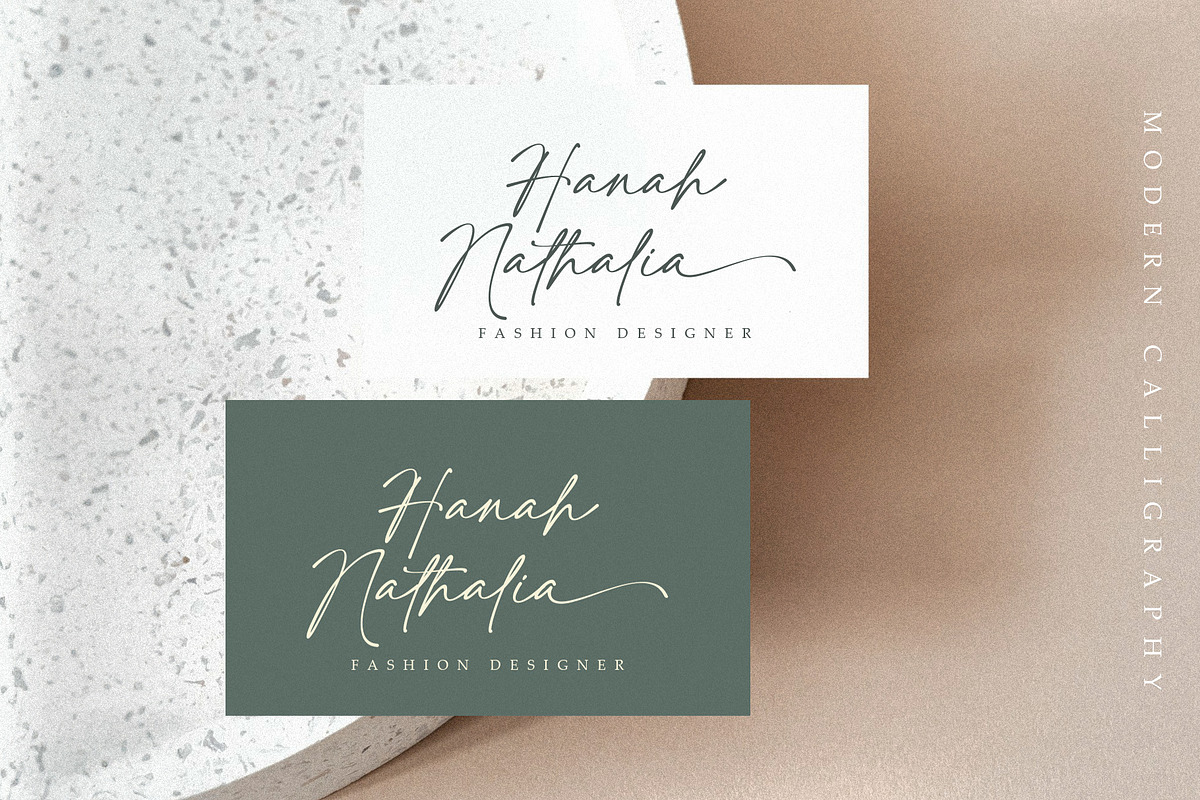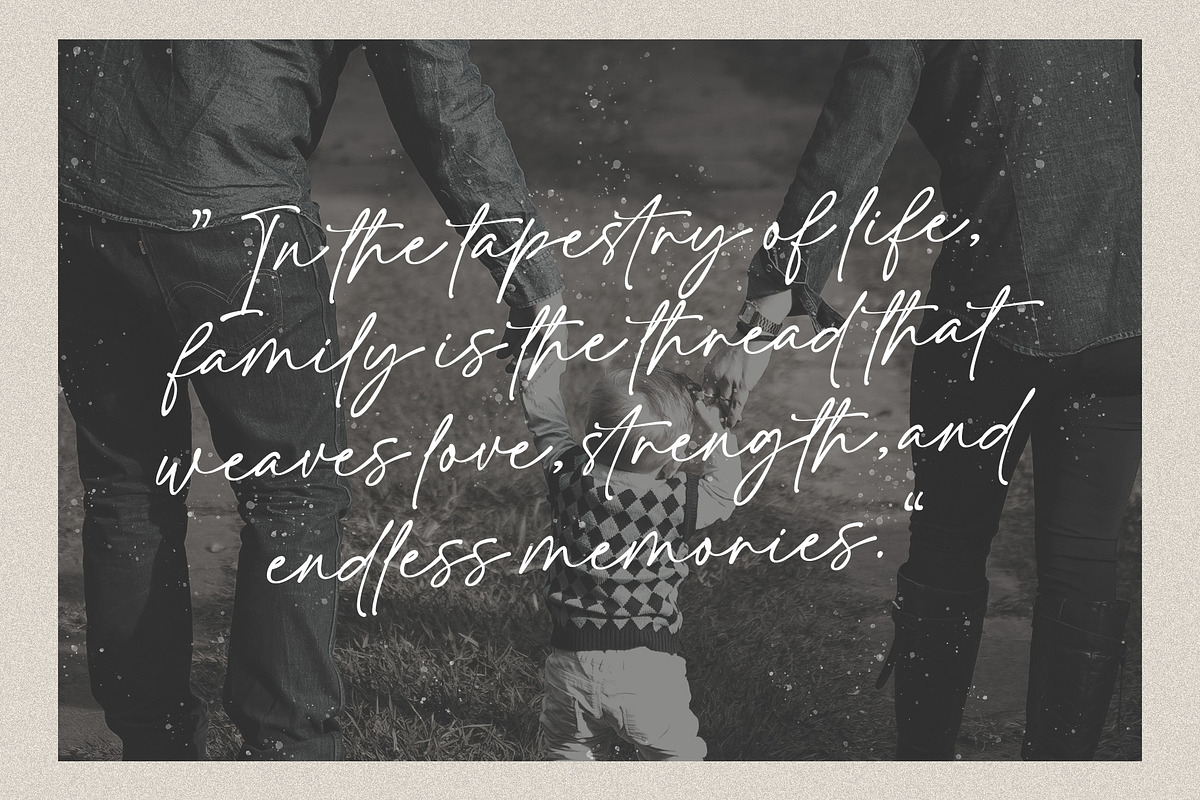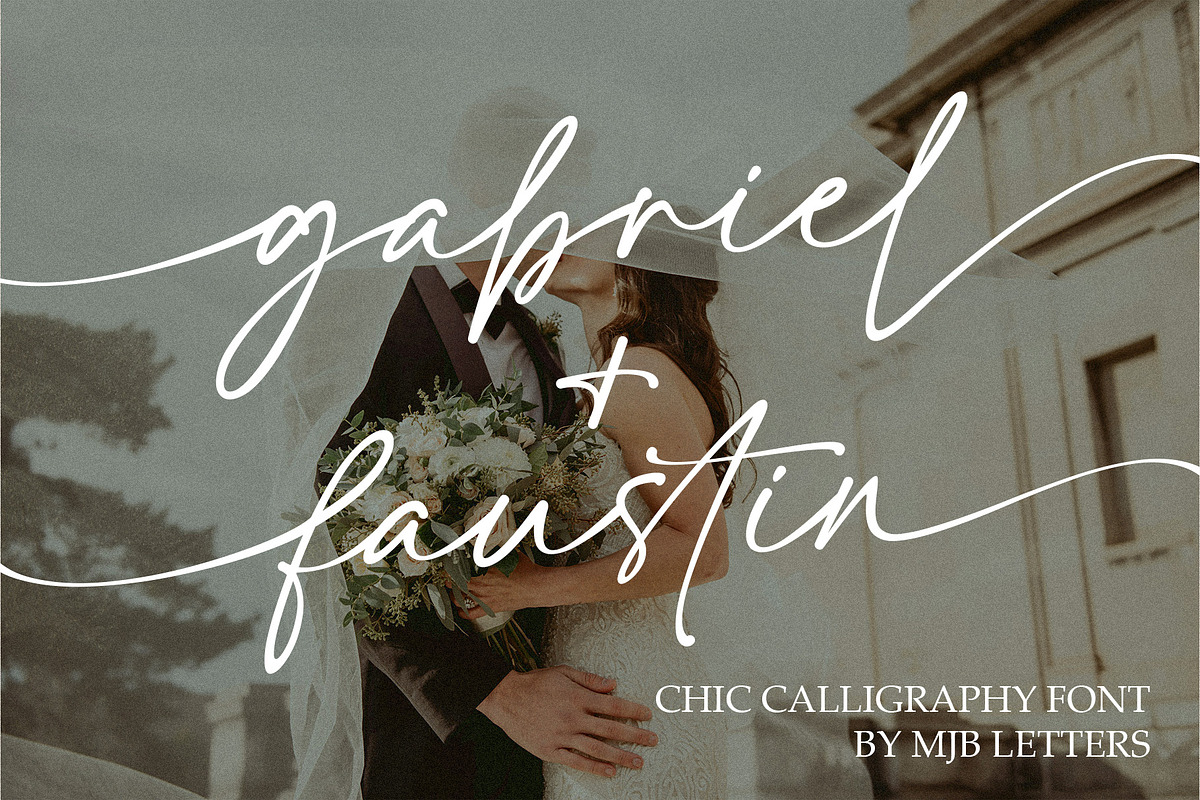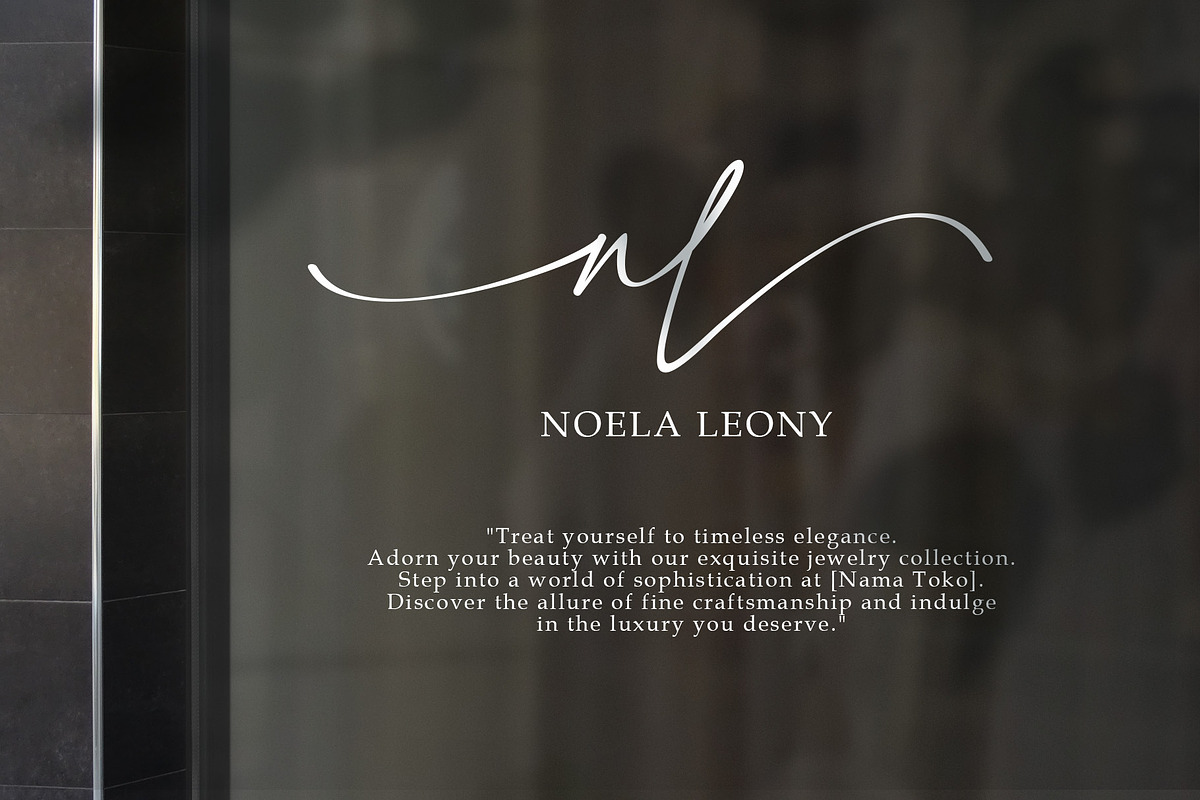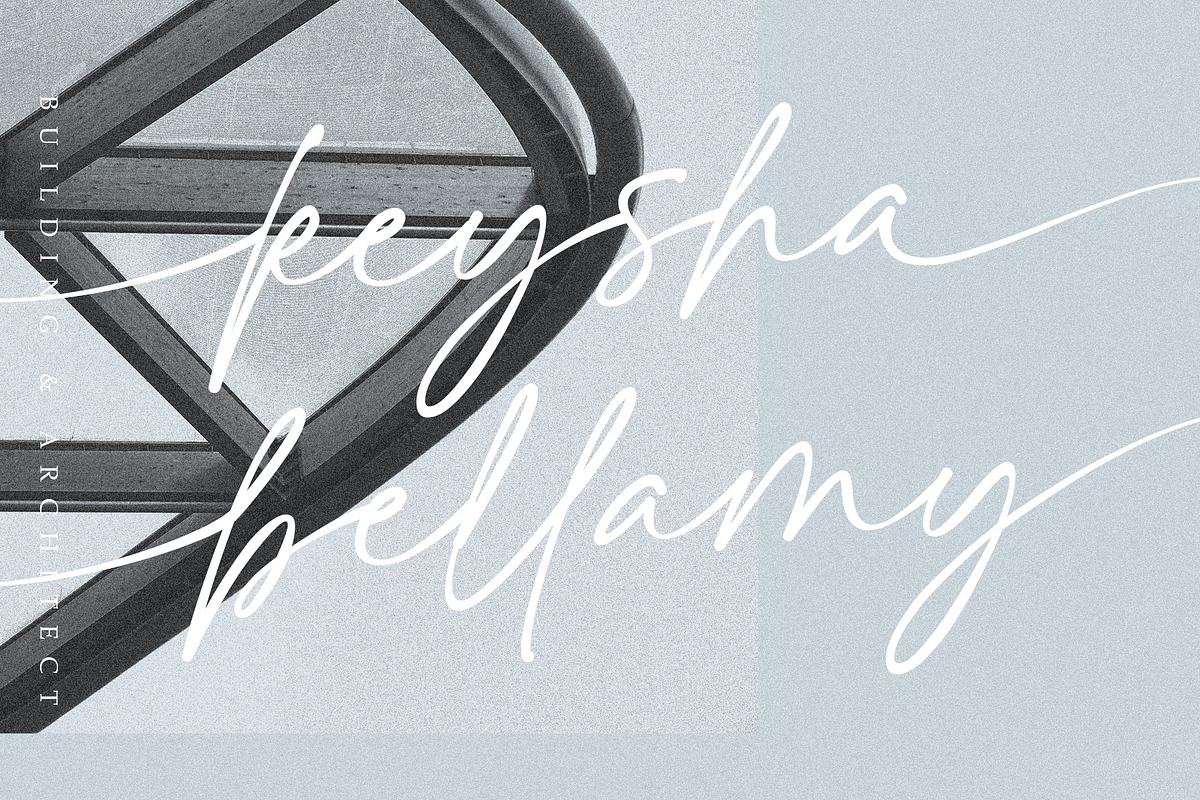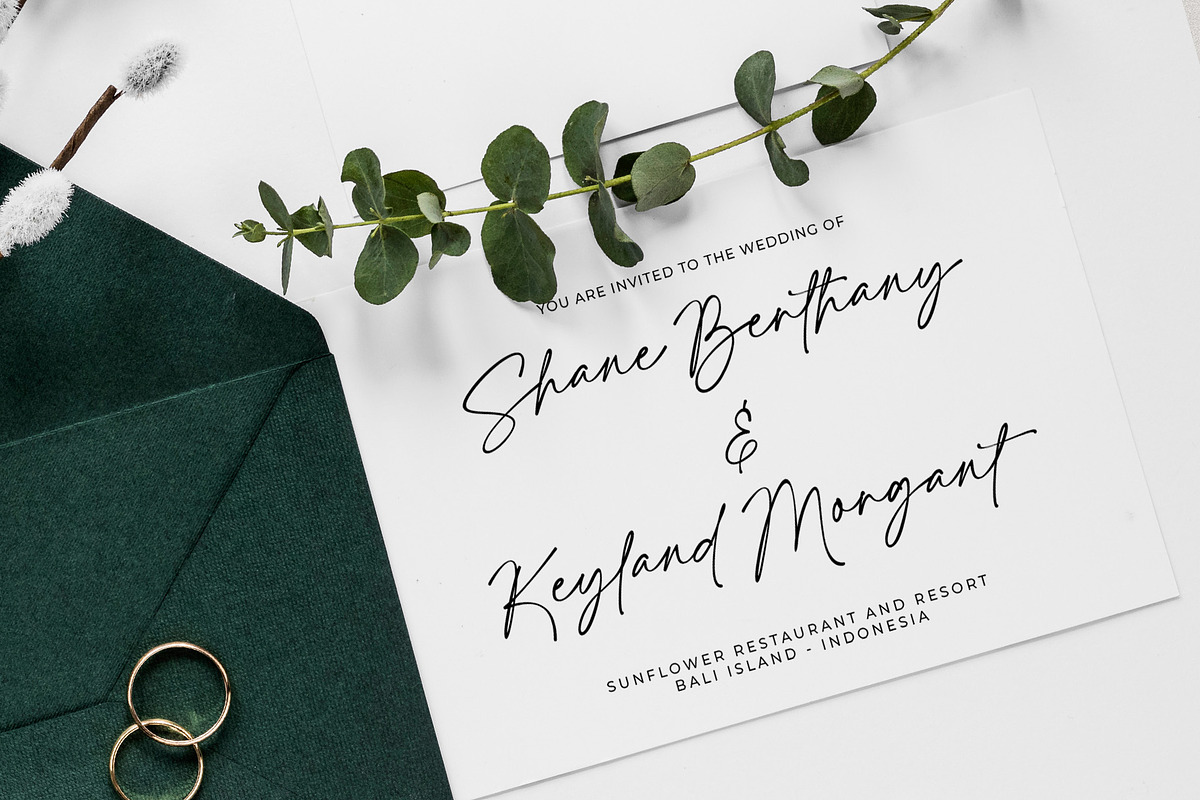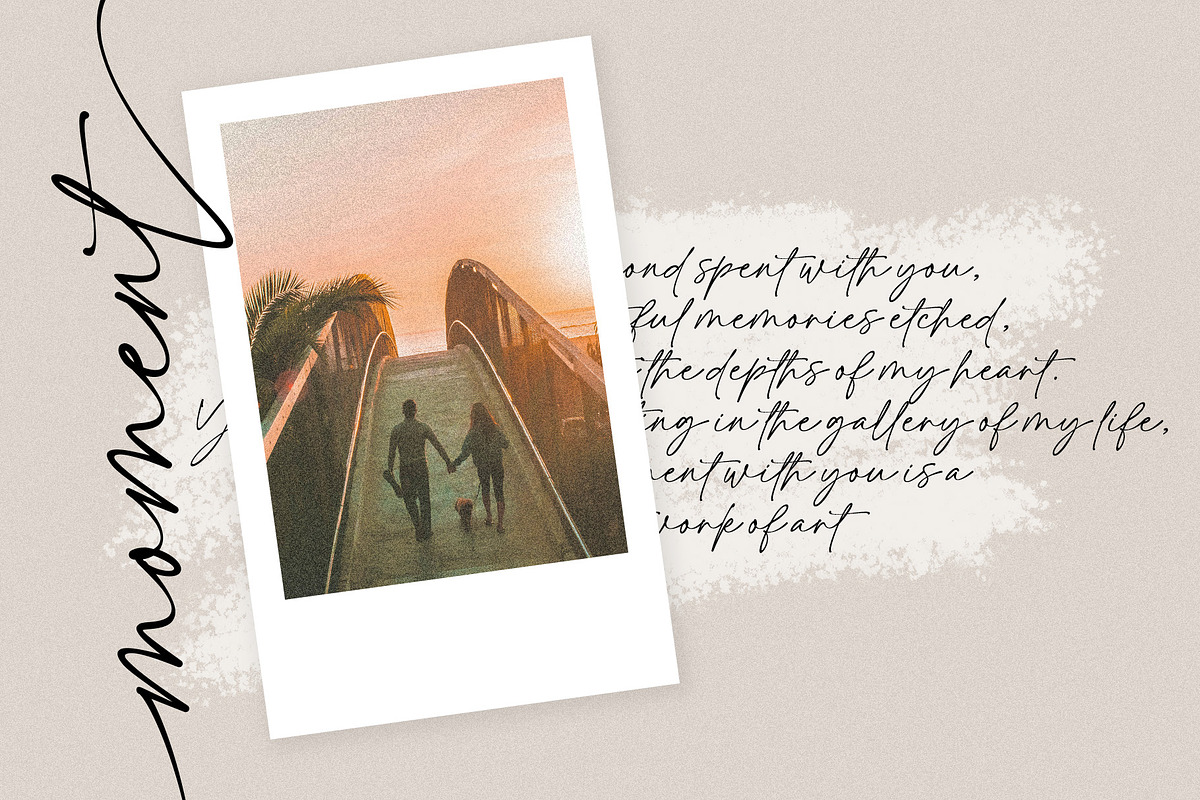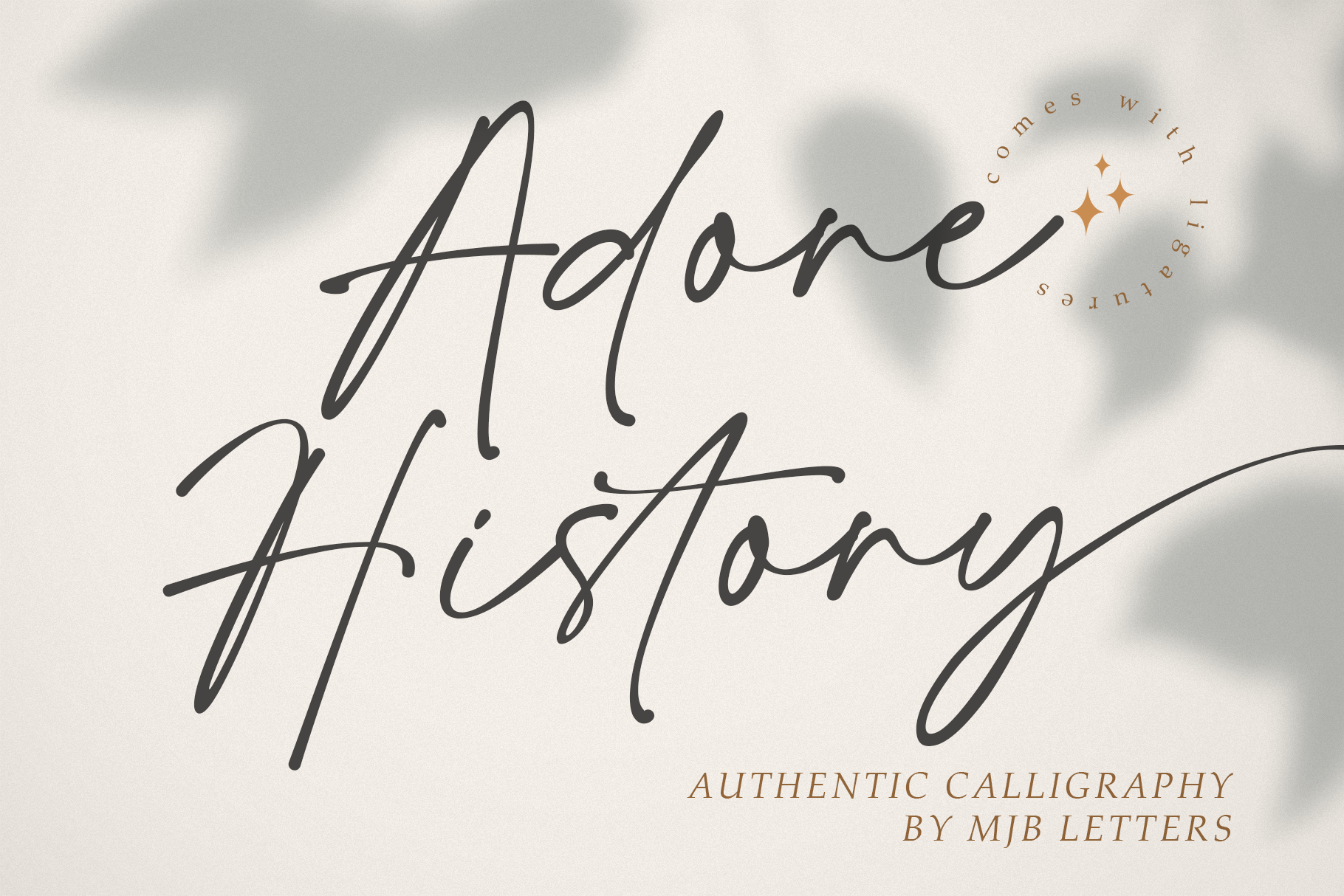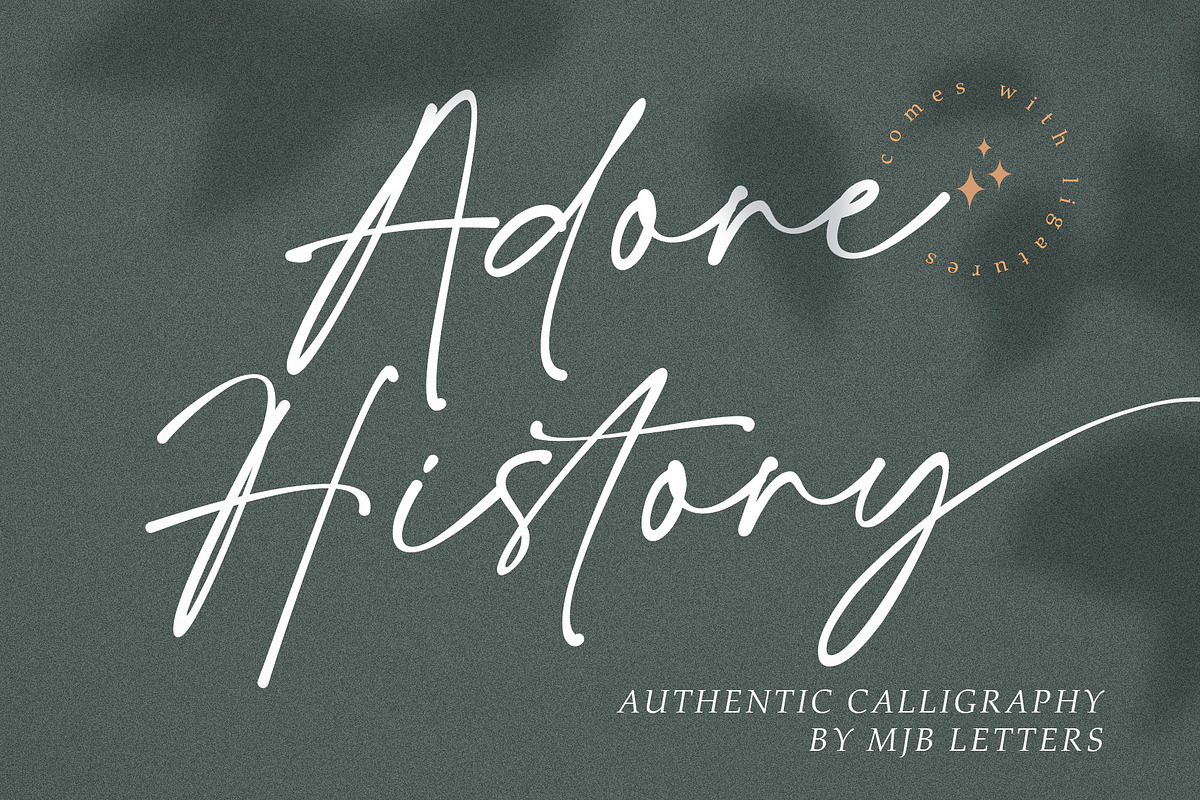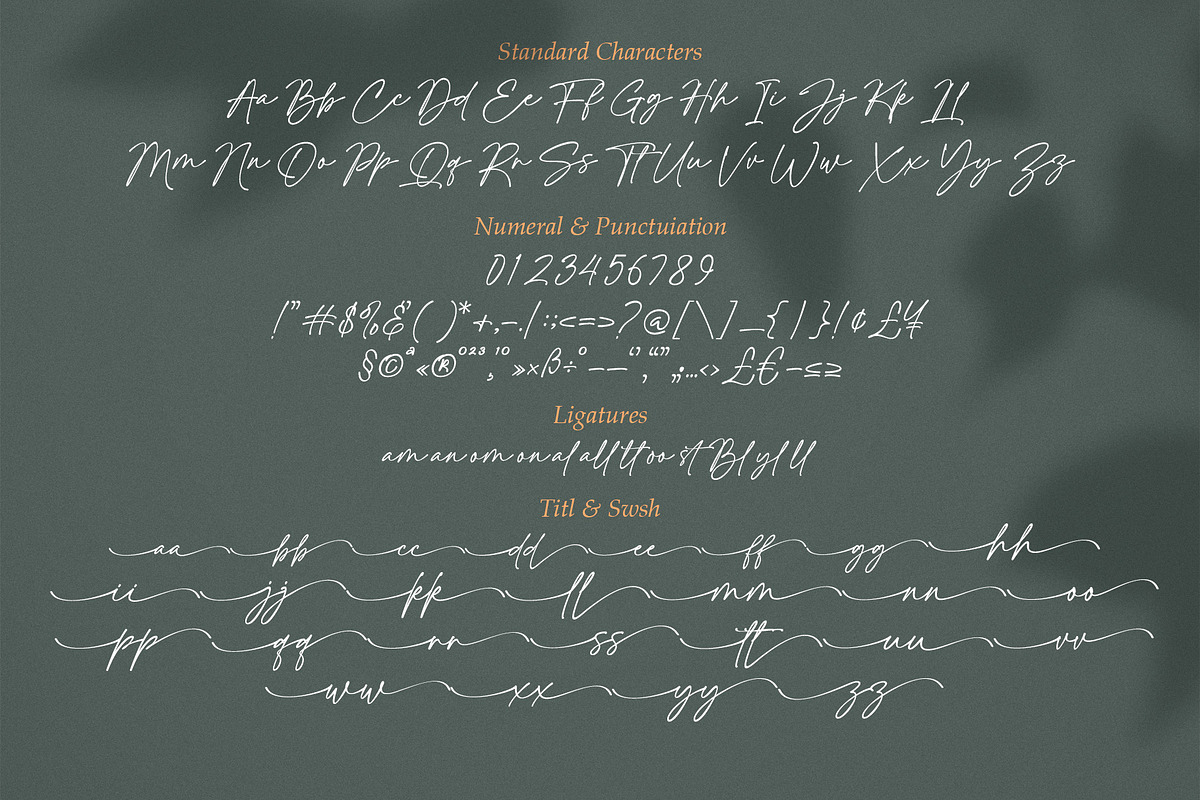
Adore History - Handwritten Font
Introducing ‘Adore History’ – A Handwritten Script Font
Immerse yourself in the graceful strokes of ‘Adore History,’ a meticulously crafted handwritten script font that brings sophistication to your creative endeavors. Indulge in the charm of ‘Adore History’ as it offers exquisite beginning and ending swashes. These delicate additions effortlessly enhance the visual appeal of your text, lending a touch of timeless elegance to your designs.
‘Adore History’ is more than just a font; it’s a versatile tool that adds a sense of romance to various projects. Whether it’s wedding invitations, heartfelt letters, or any creative endeavor, this font adapts seamlessly to the graceful ambiance of any event.
- Multilanguage Support
- Beginning & Ending Swashes